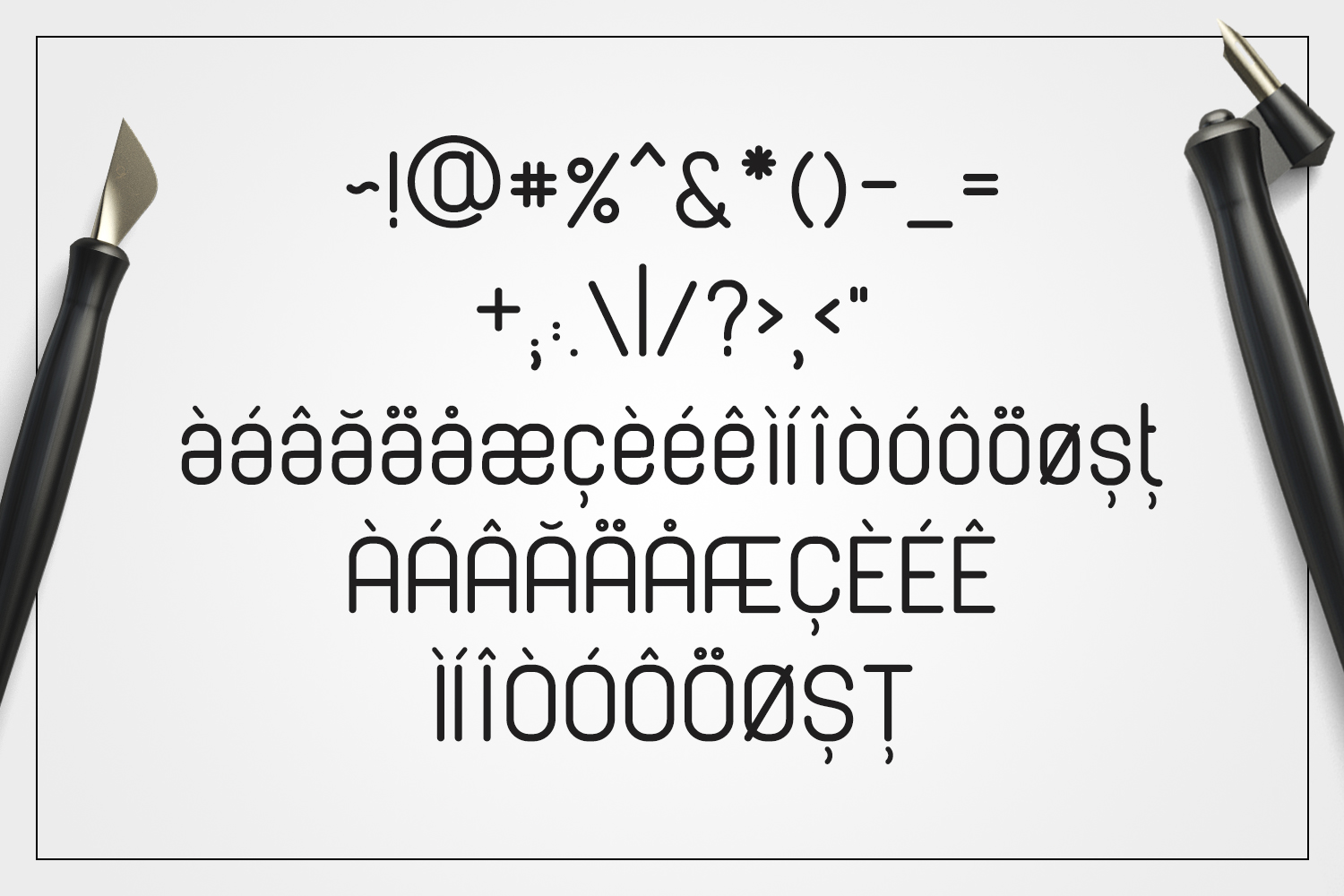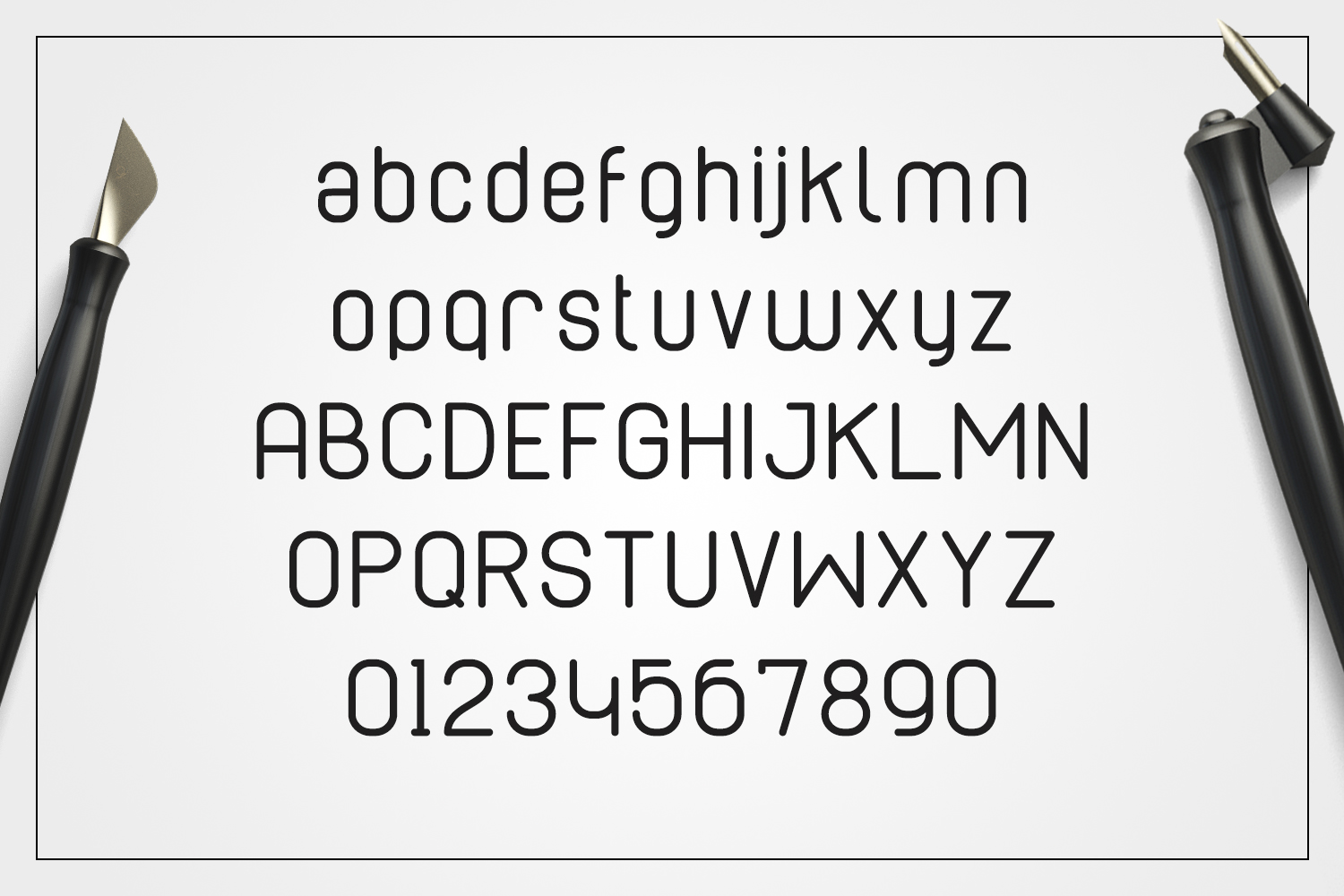
Meet Cabo Rounded, a modern sans serif font with a soft style and rounded edges and termination.
This font comes with regular english alphabet letters, numbers, punctuation mark and with the following accents: À Á Â Ã Ä Å Æ Ç È É Ê Ì Í Î Ò Ó Ô Ö Ø Ș Ț à á â ã ä å æ ç è é ê ì í î ò ó ô ö ø ș ț. More accents and glyphs can be added on request.